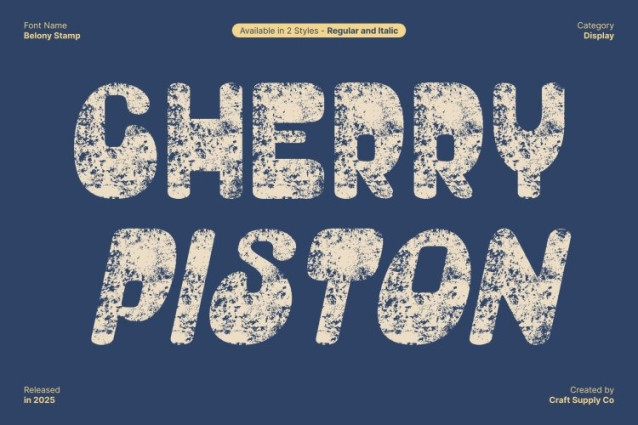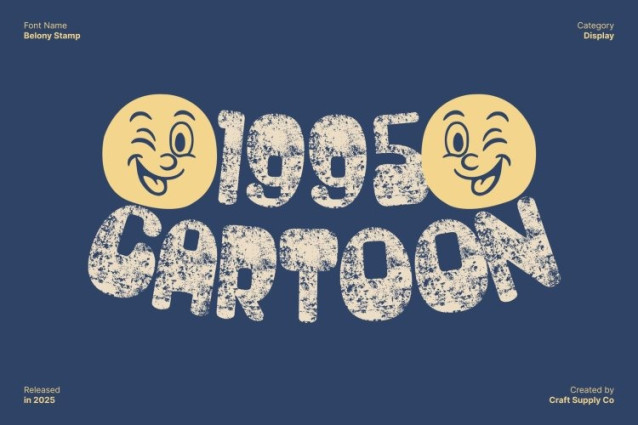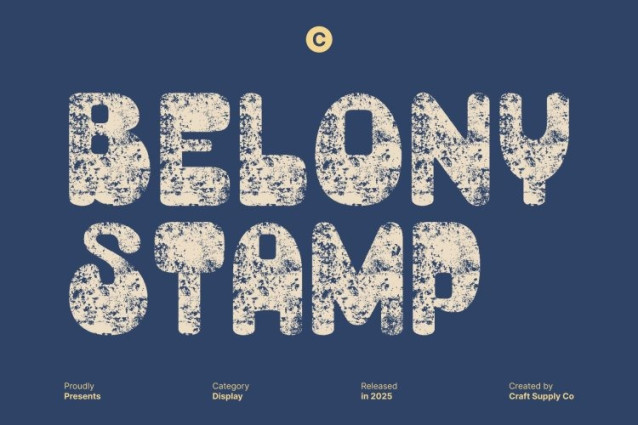
Belony Stamp Font
Belony Stamp Font This font bursts with personality, bringing together retro-inspired curves and bubbly letterforms to create a font that feels fun, lively, and irresistibly expressive. Its groovy shapes echo the spirit of vintage pop culture full of movement, rhythm, and carefree energy.
Groovy Bubble Curves for a Fun and Energetic Aesthetic
Every character in this font features smooth bubble curves, exaggerated proportions, and groovy silhouettes that radiate nostalgic fun. These retro elements give the typeface its iconic look, making it ideal for designs that embrace personality and vibrant visual storytelling. From posters to merchandise, the font brings an upbeat vibe that instantly captures attention.
Stamp Texture for Extra Expression and Artistic Flair
The added stamp texture enhances this font’s playful design with a handcrafted, expressive finish. The subtle grain and rough edges introduce a tactile, artistic character that feels authentic and lively. This texture gives the font a dynamic, printed look perfect for designers who want a touch of vintage imperfection blended with modern retro style.
Perfect for Branding, Posters, Packaging, and Creative Visuals
This font shines in creative projects that require a bold and fun aesthetic. Its retro curves, groovy playfulness, and expressive stamp texture make it perfect for branding, posters, event graphics, packaging, children’s content, social media visuals, and anything that celebrates joy and creativity.